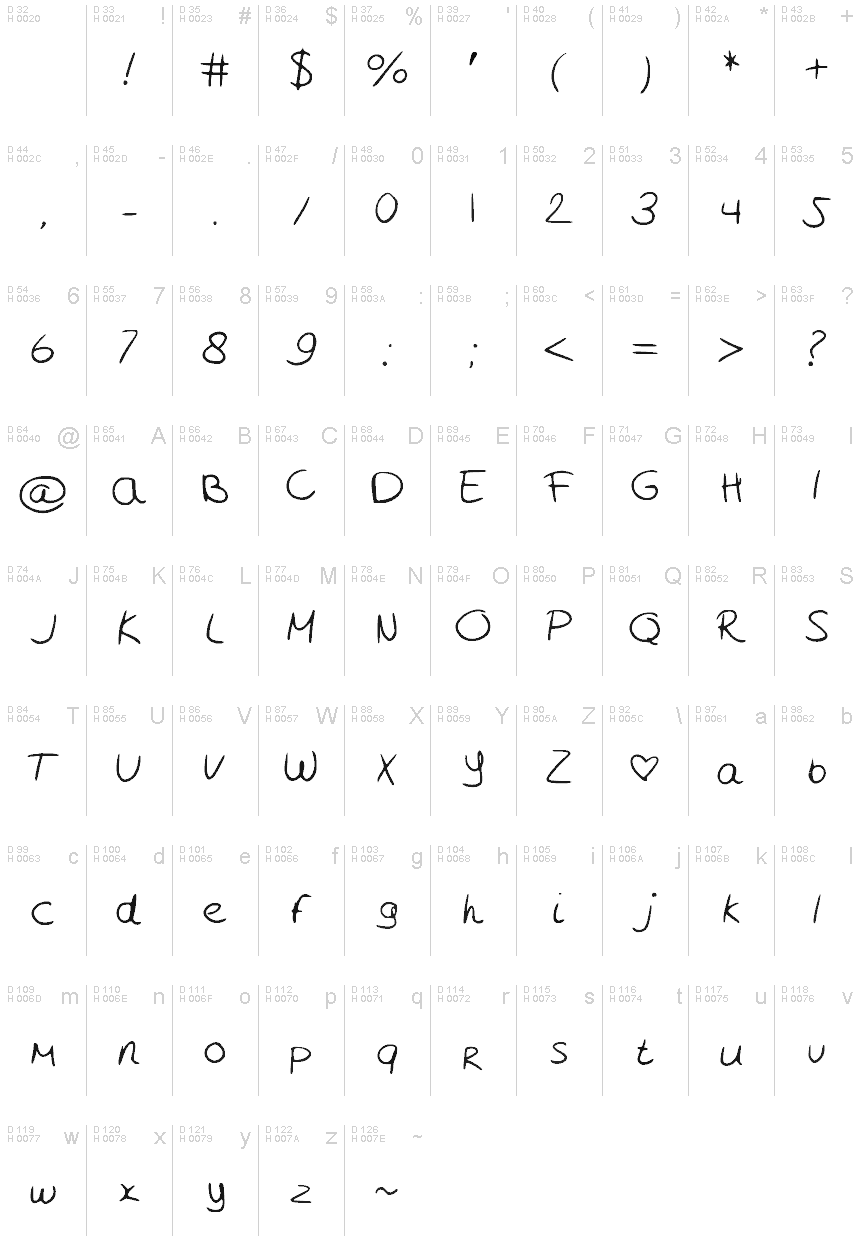
leJasper
le Jasper is a captivating handwritten font that exudes a whimsical and organic charm. Crafted with a delicate, flowing stroke, this font effortlessly captures the essence of a casual, handcrafted aesthetic. The subtle variations in letter shapes and line widths lend a distinct personality to each character, creating a sense of individuality and authenticity.
This versatile font is well-suited for a wide range of design applications, from editorial layouts and branding materials to invitations and product packaging. Its expressive, yet legible, nature makes it an excellent choice for projects that require a personal, handmade touch, whether it's a heartfelt greeting card or a rustic wedding invitation.